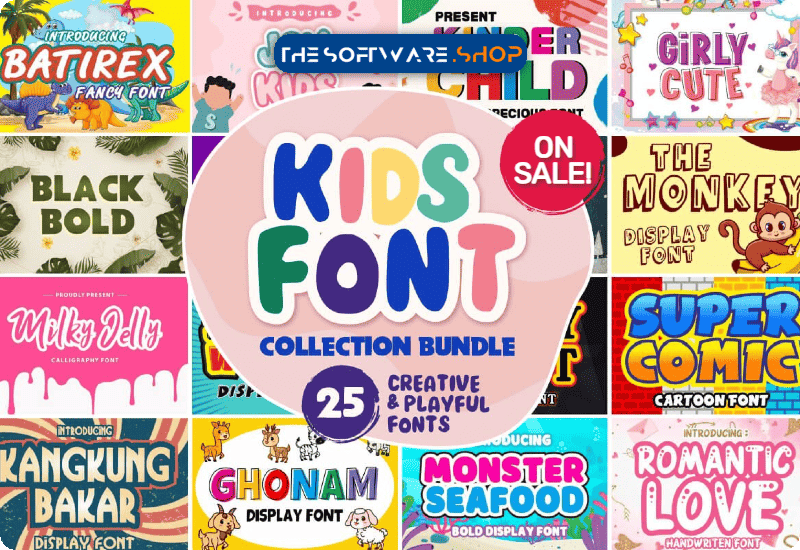
Aimed to engage, inspire and empower, this fantastic offering delivers exactly what your creativity has been waiting for. Say goodbye to mundane designs and begin your creative adventure today!
Unfolding the Kids Font Collection Bundle
The Kids Font Collection Bundle is your one-stop solution for all your creative needs. Offering a set of 25 premium fonts by Infinity art Studio, this bundle is ideal for variety of craft projects ranging from greeting cards to logos.
The premium fonts included in this bundle:
- The Monkey Display Font
- Monster Seafood Display Font
- Super Comic Display Font
- Joykids Fuentes Display Font
- Captain American Display Font
- Kids Toon Display Font
- Kinder Child Display Font
- Sweety Women Display Font
- Girly Cute Display Font
- Big Ballon Display Font
- Ghonam Display Font
- Party Christmas Display Font
- Romantic Love Script & Handwritten Font
- Ghost Buster Display Font
- River Squid Display Font
- Black Bold Display Font
- Kangkung Bakar Display Font
- Christmas Star Decorative Font
- Funny Mermaid Display Font
- Happy Ghost Display Font
- Gotenk Font Sans Serif Font Di Infinity art Studio
- Nft Monster Display Font
- Milky Jelly Script & Handwritten Font
- Batirex Display Font
- Jacklovers Display Font
Each font in this bundle carries a unique identity. This ultimate collection offering unlimited possibilities to your imagination.
How Can You Use this Bundle?
Fun Meets Professional
It’s simple. The Kids Font Collection Bundle is designed to bring the perfect balance of fun and professional appeal to your projects. The variety of fonts included ensures that your designs will always stay unique and the commercial license adds a lot of value empowering you to design an extensive range of stylish and effective creations.
Endless Creativity with the Kids Font Collection Bundle
Think of the Kids Font Collection Bundle as your creative powerhouse. Utilize the Monster Seafood Display Font for a cool birthday invitation, get sentimental with the Romantic Love Script & Handwritten Font for a Valentine’s Day card or spread the festive joy with Christmas Star Decorative Font. The possibilities are limitless.
With the Kids Font Collection Bundle, creativity flows with abundance. Whether you’re a design novice or an experienced artist, this collection will help you break your creative barriers, while also imbuing your designs with child-like energy and professional grace.
Adding spark to your designs just got easier and exciting with the Kids Font Collection Bundle. With a single Bundle, you can infuse life and depth to your work, delivering an enchanting experience that leaves an everlasting impact.
Uncover this treasure today and empower your designs with unmatched creative freedom. Immerse yourself in the Kids Font Collection Bundle and allow your designs to communicate effectively!